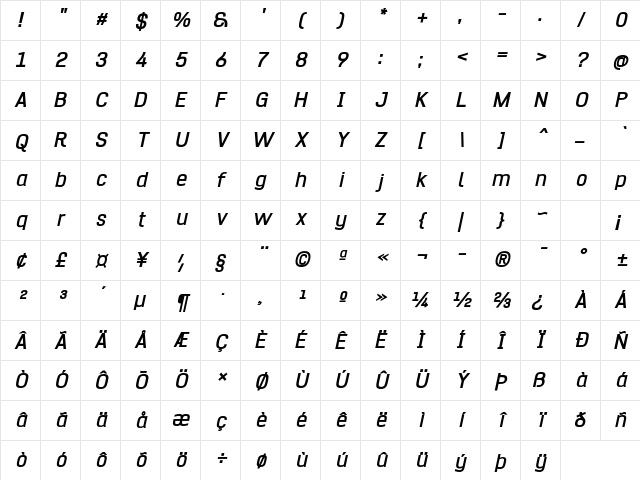
Complete Holy Mackerel! Regular glyph index. Displaying only characters natively supported by Holy Mackerel! Regular font.
Holy Mackerel! is a composed and adaptable typeface that performs quietly and consistently across a wide range of design contexts.